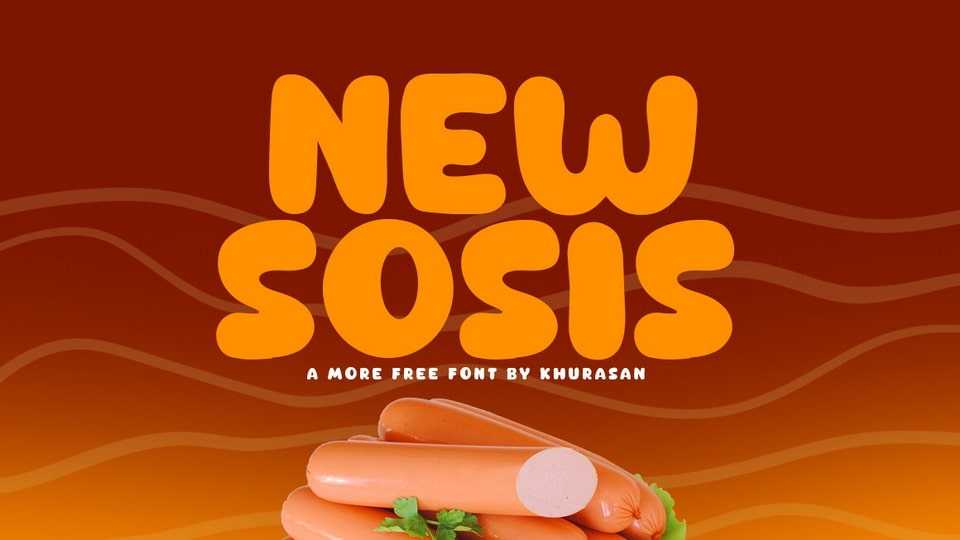
Download New Sosis lfont, a rounded hand crafted font that brings a playful bounce and vibrant energy to your designs. New Sosis font features a delightful and rounded design, with each letter exuding a sense of friendly movement.